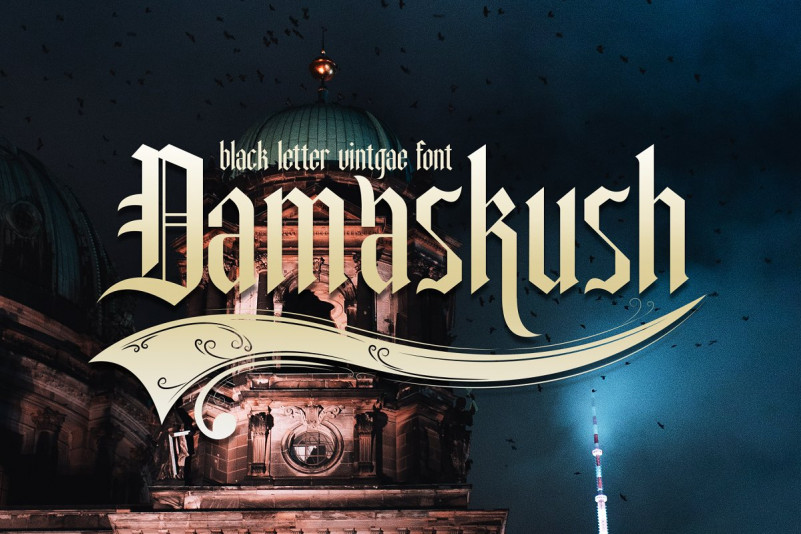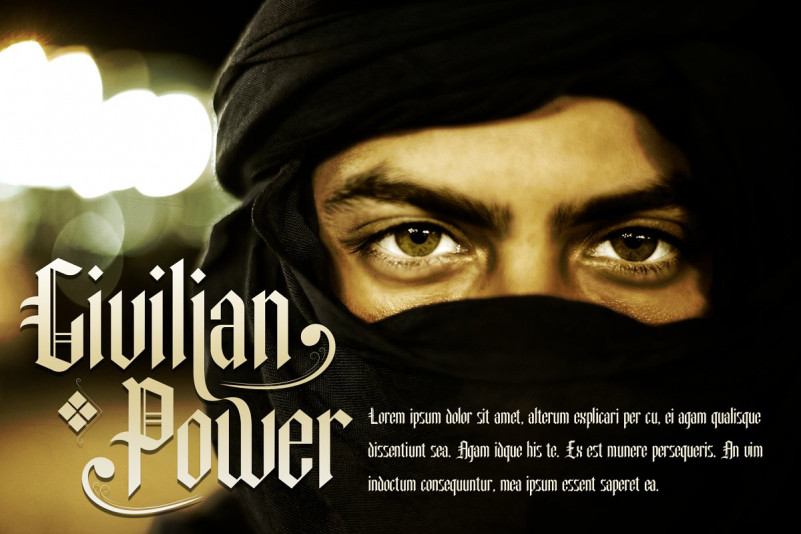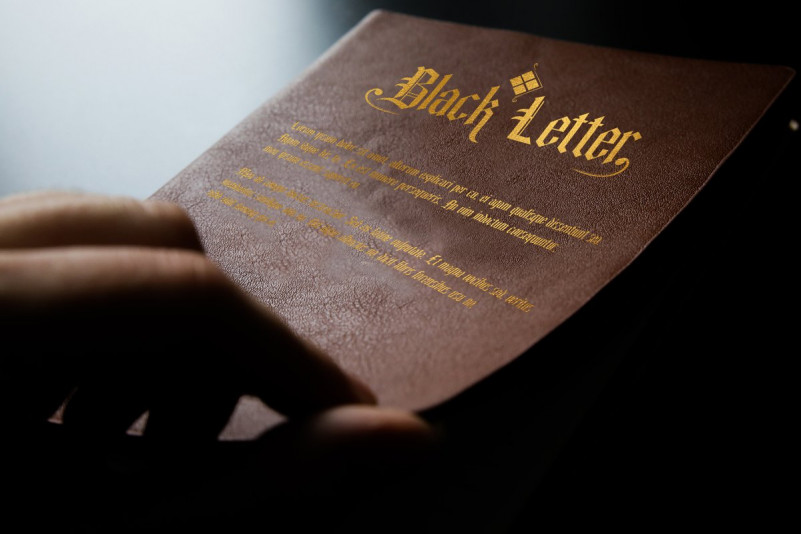
Damaskush Font
— Elegant / Vintage / Decorative —
Damaskush font is a sans font family Inspired by vintage logo design, we try to make it more elegant and strong so it’s can useful for any purpose. it’s perfect for you to show your design or product in professional way.